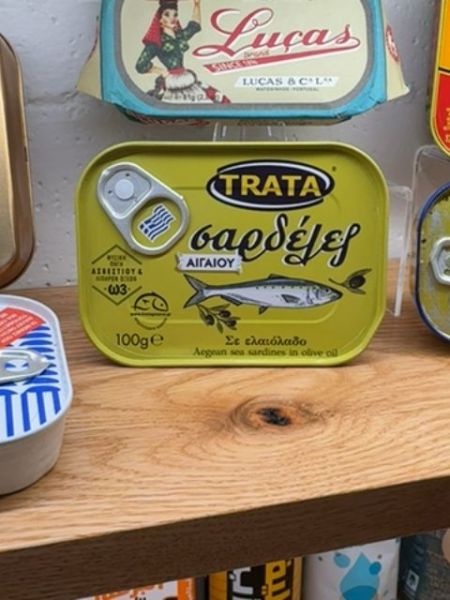
Trata Sardines
Canned sardines packed in olive oil, sourced from the Aegean Sea.
Greece
The typography combines a bold, sans-serif font for the brand name 'TRATA', which is placed inside an oval shape, giving prominence and clarity. The Greek text uses a more script-like font that adds a traditional touch, emphasizing the product’s cultural origin.
The packaging features a rectangular can with a pull-tab lid, predominantly colored in olive green. The design includes an illustration of a sardine and clear labeling in both Greek and English.